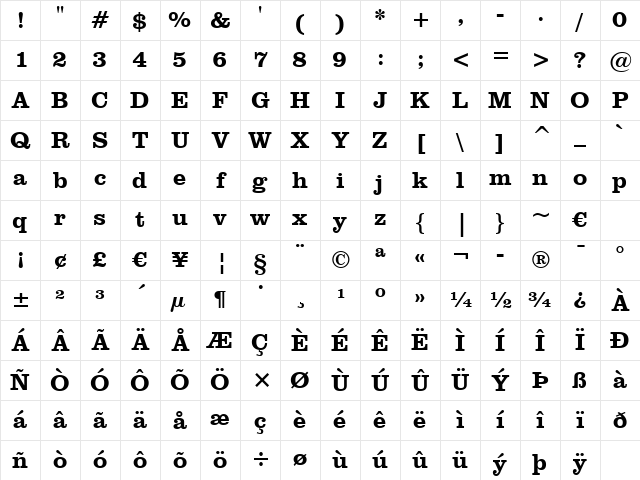
Complete Clarendon Hv BT Heavy glyph index. Displaying only characters natively supported by Clarendon Hv BT Heavy font.
Clarendon Hv BT features prominent, blocky serifs that give it a confident, grounded presence - equally at home in editorial settings and bold branding work.
Pro Tip: Use Clarendon Hv BT for headlines and subheadings where its slab serifs can make an impression. It also holds up well in mid-size body copy thanks to its sturdy construction.